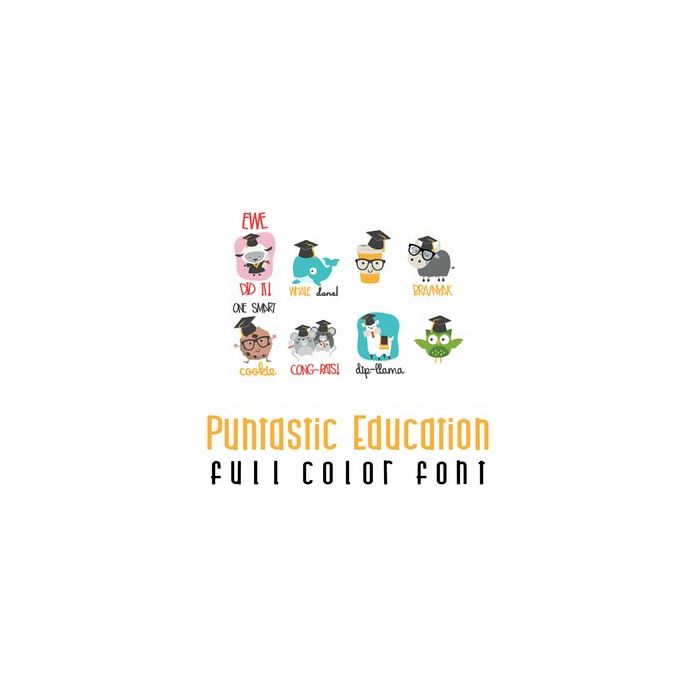
This adorable full color doodlebat font features 30 Education and Graduation images and puns. Perfect for cards, crafts, gifts, decor, scrap book pages, planner stickers and more!